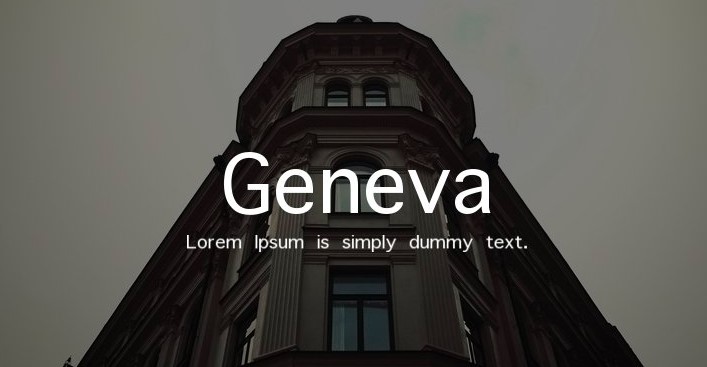
Geneva Font is an excellent sans-serif typeface that our graphic designers and website developers love. Introducing Geneva Font, a free typeface that can be used in both commercial and personal projects. This font features a unique grotesque industrial sans-serif look created and shared by Susan Kare for the renowned company Apple Computers.
This is the oldest typeface that is specially designed for Mac OS. You can use this also today in your modern and latest designs to make them attractive and unique as compared to others.